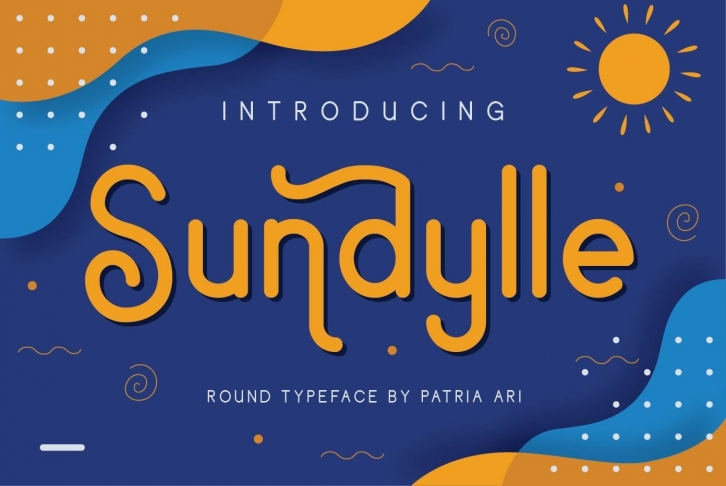
Sundylle - Fun & Decorative Display Typeface FONT Download
Sundylle is a great font that was designed by Patria Ari. Imagine the amount of combinations you can create using this font! The archive is 21.4 MB and it was released on July 21, 2020. Sundylle looks beautiful on wedding invitations, greeting cards, logos, posters, labels, t-shirt designs, logos, business cards and is perfect for use in ink or watercolor works, fashion, magazines, packaging and food menus, children's books and more!